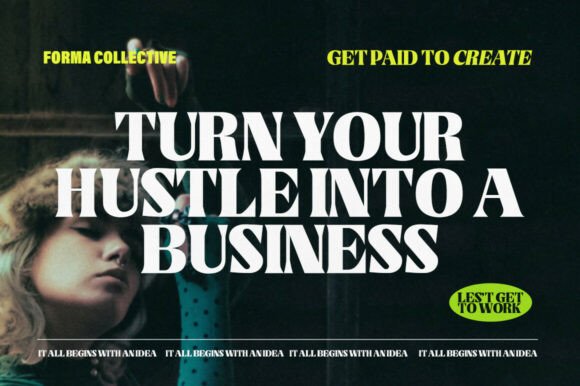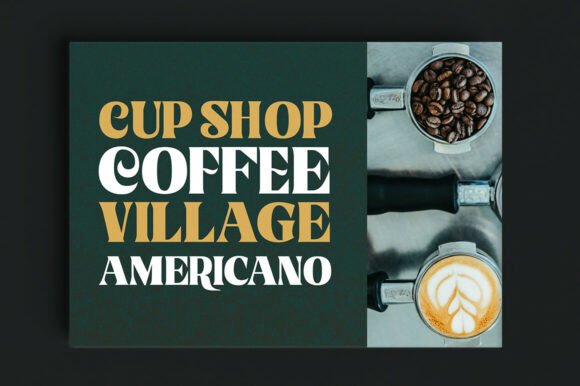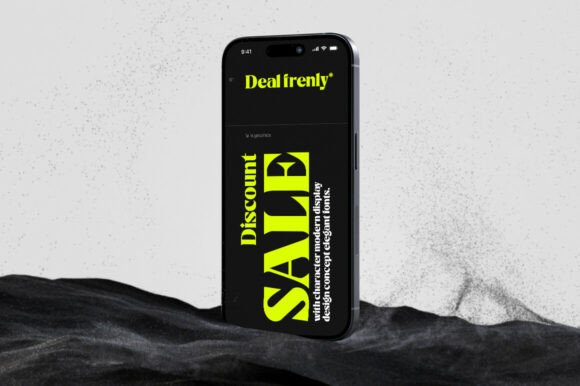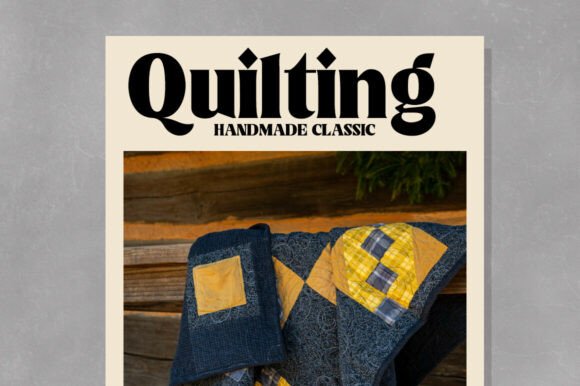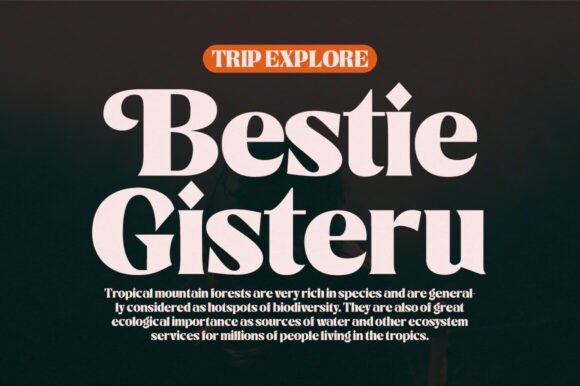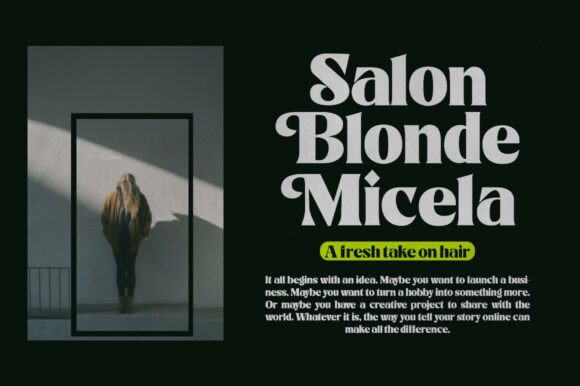
Have you ever stared at a blank page, wondering how to bring your design to life? We’ve all been there. As designers, we know that the right font can make all the difference. It’s the spark that sets our creative vision ablaze, and the key to making our ideas shine. For editorial titles, magazine covers, and web design, finding that perfect font can be a challenge. But what if I told you there’s a font that’s specifically designed to make your creative vision pop?
Meet the Catiler Font, a stunning modern display font that’s perfect for adding a touch of elegance to your designs. With its OpenType-enabled capabilities, Catiler Font makes it easy to use in a variety of projects, from editorials to posters and t-shirts. And with its multilingual support and symbols, the possibilities are endless. Whether you’re a seasoned designer or just starting out, the Catiler Font is a valuable addition to your design toolkit.
- Unique Characteristics: The Catiler Font features a unique blend of modern and vintage elements, with intricate details and subtle texture.
- Language Support: The font supports a wide range of languages, including Latin, Cyrillic, and Greek alphabets.
- Kerning and Ligatures: The font includes advanced kerning and ligature pairs, ensuring smooth and professional typography.
Designer Review: Catiler Font
Overall, I found the Catiler font to be an interesting and creative choice. Here are some of its standout features: ✨
- Unique letterforms and ligatures that add a touch of personality to text.
- Supports a wide range of languages, making it a great option for global projects.
- Well-suited for headings and titles, thanks to its bold and eye-catching style.
- The font’s irregular letterforms may be challenging to read for some users, particularly at small sizes.
- The font’s bold style may be overwhelming for certain applications, such as body text or captions.
- The font’s extensive language support comes at the cost of a slightly larger file size.
Overall, I think the Catiler font is a great choice for designers who want to add some personality to their projects. While it may not be suitable for every application, it’s a great option for headings, titles, and other text elements where a bold and eye-catching style is desired.
Use the Catiler font to add a touch of elegance and sophistication to your designs.
Pair the Catiler font with other fonts to create a unique and visually appealing combination.
Experiment with different font sizes and colors to create contrast and emphasis.
The Catiler font is perfect for:
Business cards and letterheads.
Magazine and book titles.
Web design and digital media.